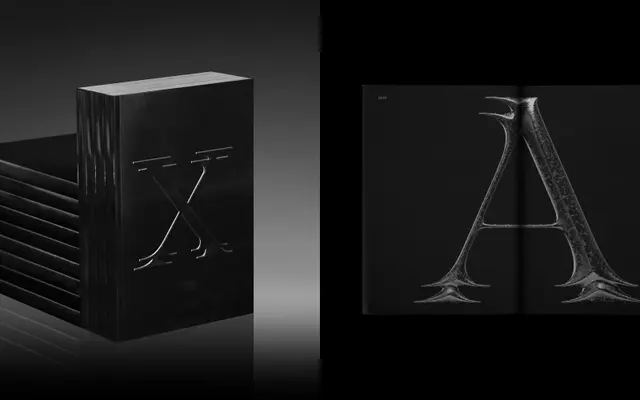
Drool specimen from The Designers Foundry
A biomechanical display serif inspired by H.R. Giger's Xenomorph design from Ridley Scott's 1979 film Alien, with curving terminals and connective-tissue-like strokes.
Two styles, Single and Double, share the same organic anatomy: terminals that curve as if grown, and a structural rhythm that reads as living tissue under tension. The letterforms suit large-scale applications where the uncanny quality reads clearly, particularly titles, posters and identity work with a dark or unsettling register. Discretionary ligatures and alternate characters for A, G, K, Q and R extend the expressive range.
Drool is a display serif with organic, sculptural forms inspired by H.R. Giger's biomechanical aesthetic, placing it firmly in the display category with a horror/dark arts subcategory.